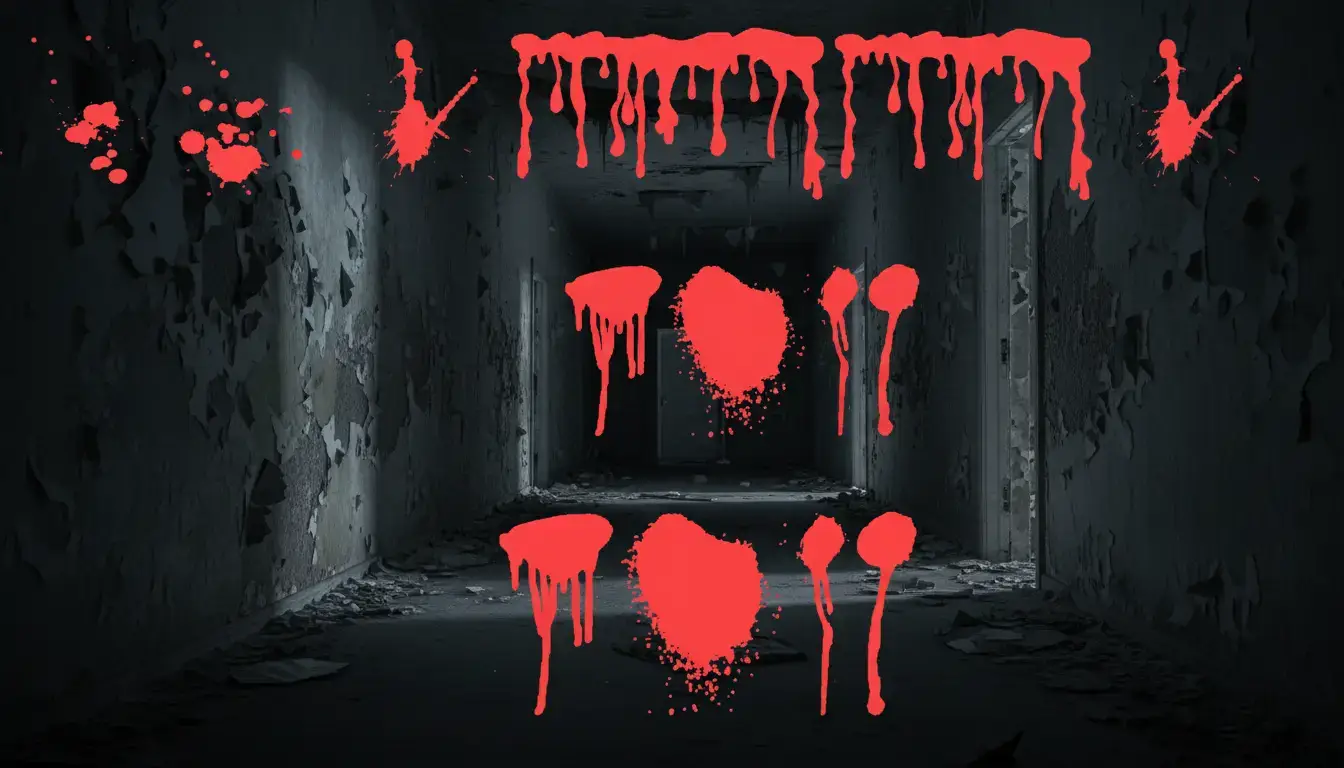
Dripping Font
Dripping is a dingbats font. Instead of letters, it gives you a set of small pictures and icons you can type with your keyboard. It's a free download, and you can try it with your own text in the preview above first.
What You Can Type With Dripping
You get every letter from A to Z in both cases and all the numbers from 0 to 9, which means Dripping can handle full sentences, dates and prices. Common punctuation such as &, !, ? and @ is included as well. It also has the accented letters you need for Spanish, French, German, Portuguese and Italian.
Where Dripping Works Best
Dripping is a natural fit for icons, decorative borders and themed designs. Pick the symbols you want from the character map, then type those keys. Change the font size and color to style the icons like normal text.
Does Dripping support accented letters?
Yes. Dripping includes the accented letters needed for Spanish, French, German, Portuguese and Italian, so it works for more than just English.
What fonts pair well with Dripping?
Use it next to any regular font to add icons, bullets or borders to your design.